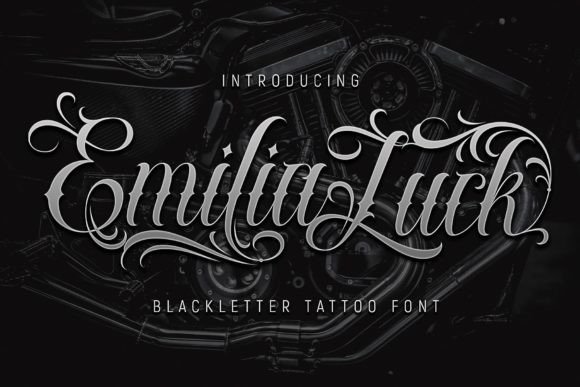
Emilia Luck Font
Emilia Luck is a contemporary blackletter tattoo font that feels right at home on logos, t-shirt designs, posters, flyers, and other brand identity material. It’s an excellent typeface to integrate your artwork with.